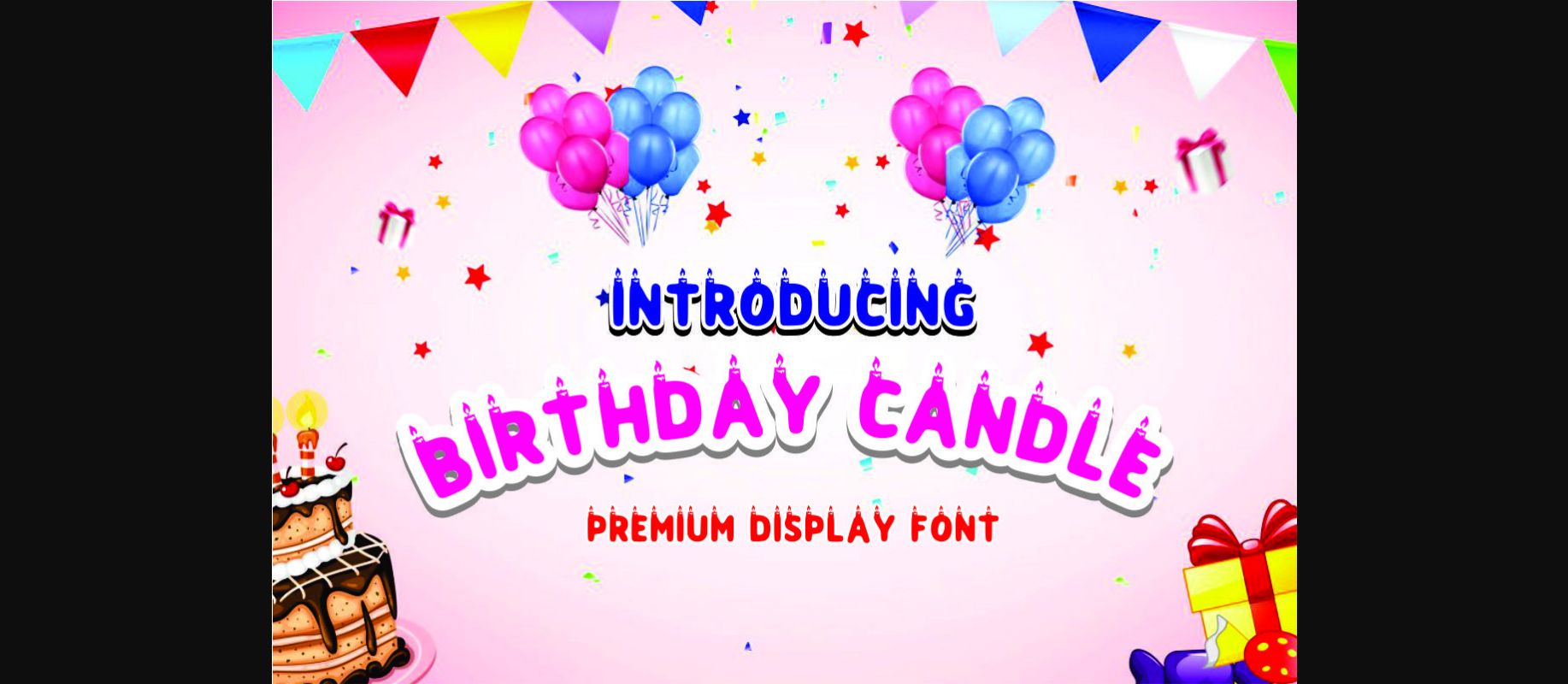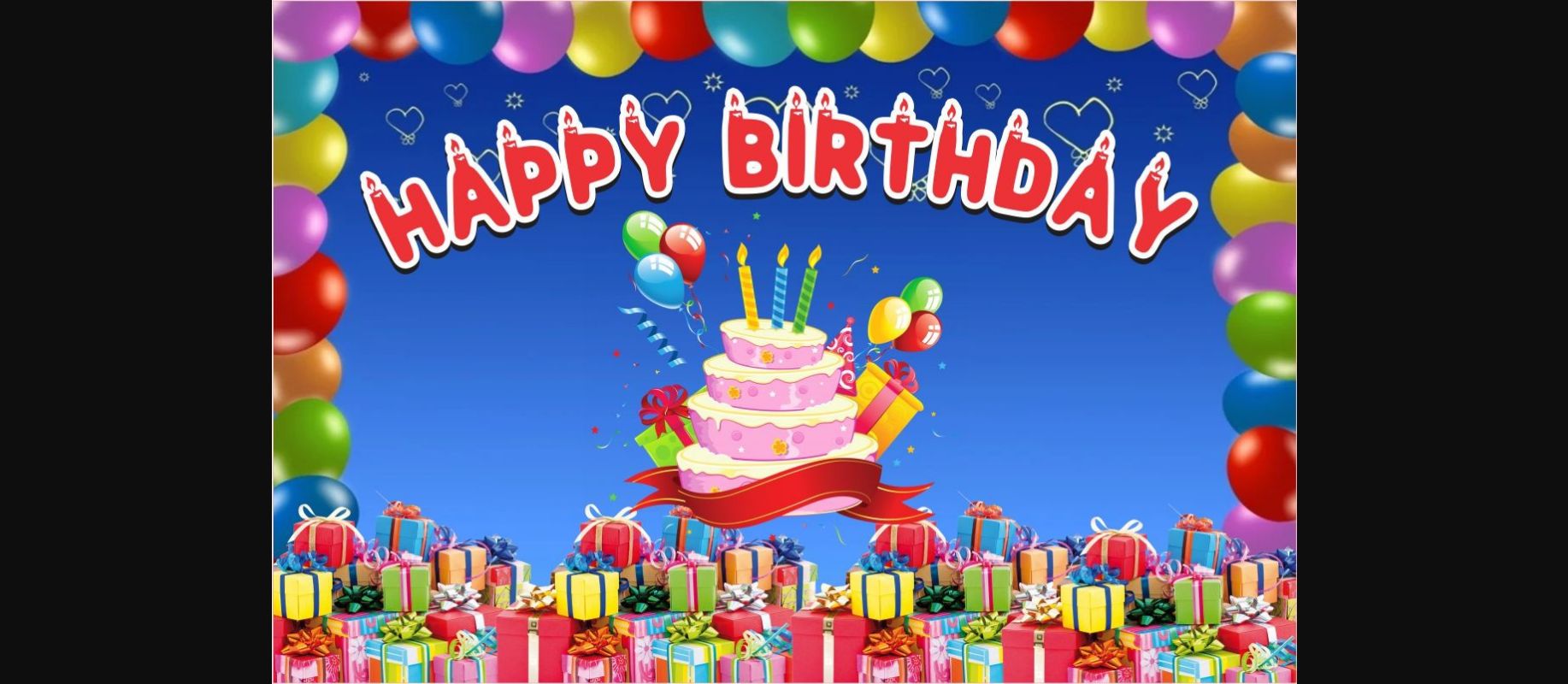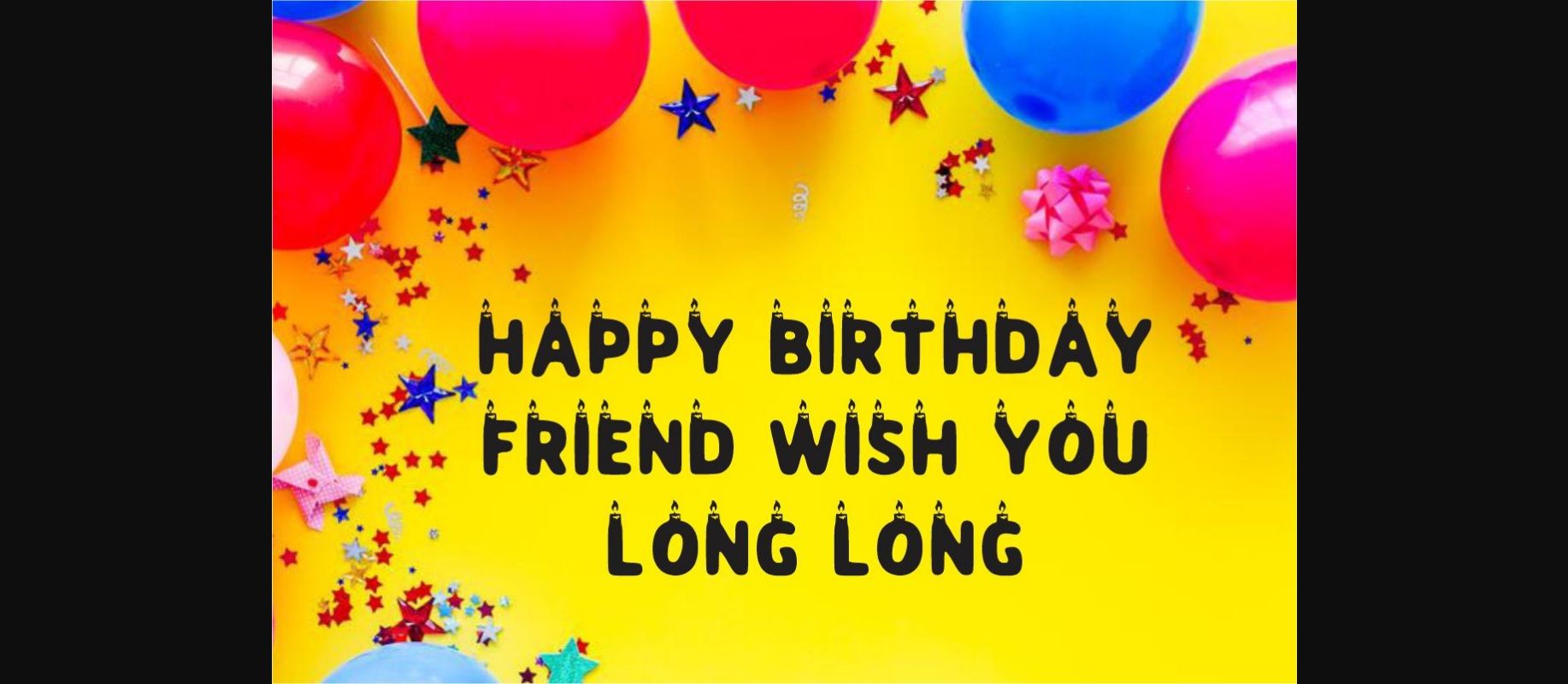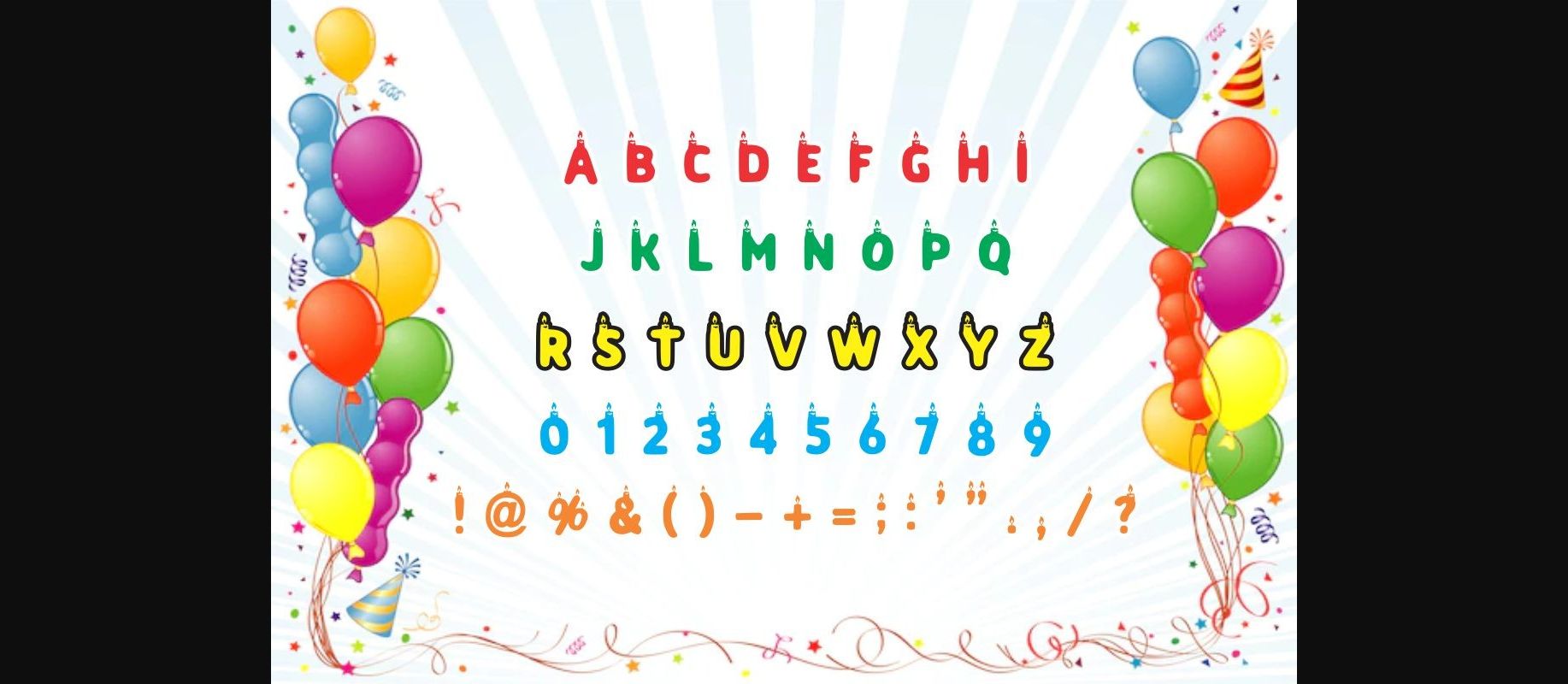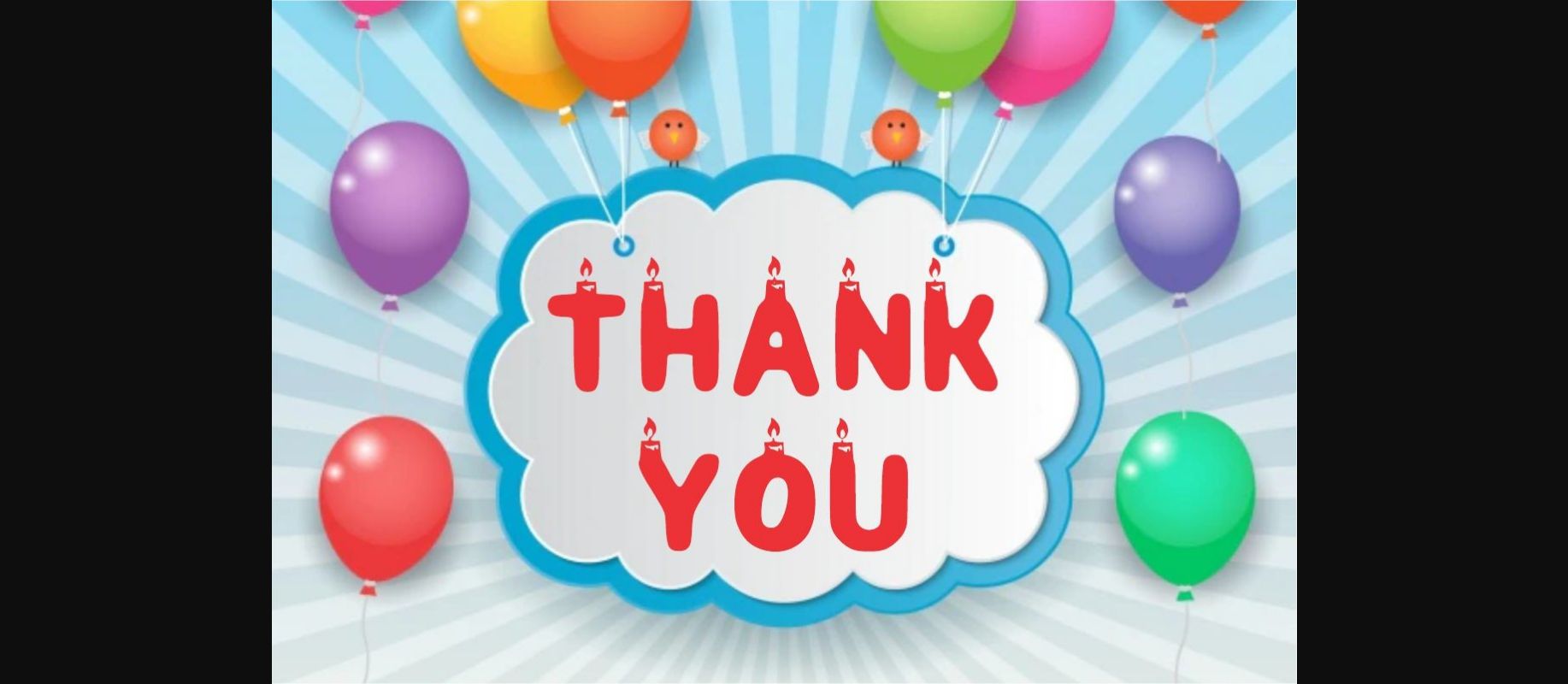
About Birthday Candle Font
Birthday Candle is a decorative font that looks like a birthday candle. It’s perfect for kids’ birthday designs and other fun designs. It features characters with birthday candles and will look amazing in your future craft projects.